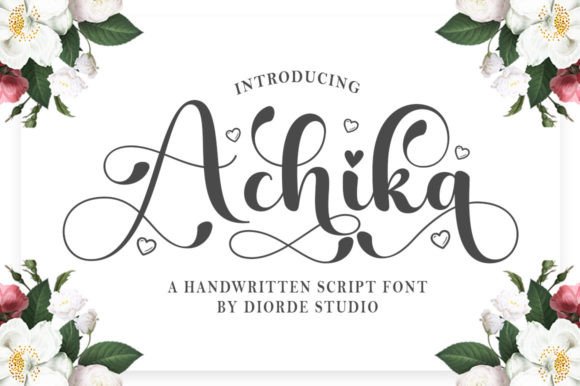
Step into a world of elegance, warmth, and timeless charm with Achika Font, a script font that captures the essence of romanticism and delicacy. Crafted with meticulous care by Diorde Studio, this font exudes splendor and kindness, promising to add a refreshing and captivating touch to your designs.
Journey through the world of Achika Font, a delightful handwritten font that dances across your screens with grace and charm. With its intricate curves, playful flourishes, and delicate strokes, Achika captures the essence of romance and elegance, turning your words into works of art.
Immerse yourself in the beauty of Achika Font, a script font that embodies the warmth and charm of a handwritten letter. Its flowing lines create a sense of intimacy and connection, inviting your readers to engage with your content on a deeper level.
Whether you're creating wedding invitations, designing logos, crafting social media posts, or simply expressing your creativity, Achika Font is the perfect companion for all your projects. Its versatility knows no bounds, allowing you to effortlessly elevate the look and feel of any design.
With Achika Font, you'll discover a symphony of glyphs and ligatures, carefully encoded in PUA format, granting you access to a world of creative possibilities. Unleash your imagination and explore endless combinations, crafting designs that captivate and inspire.
So, embrace the magic of Achika Font, a script font that weaves beauty, elegance, and charm into every word. Let your creativity soar as you transform your designs into masterpieces, leaving an unforgettable impression on your audience.